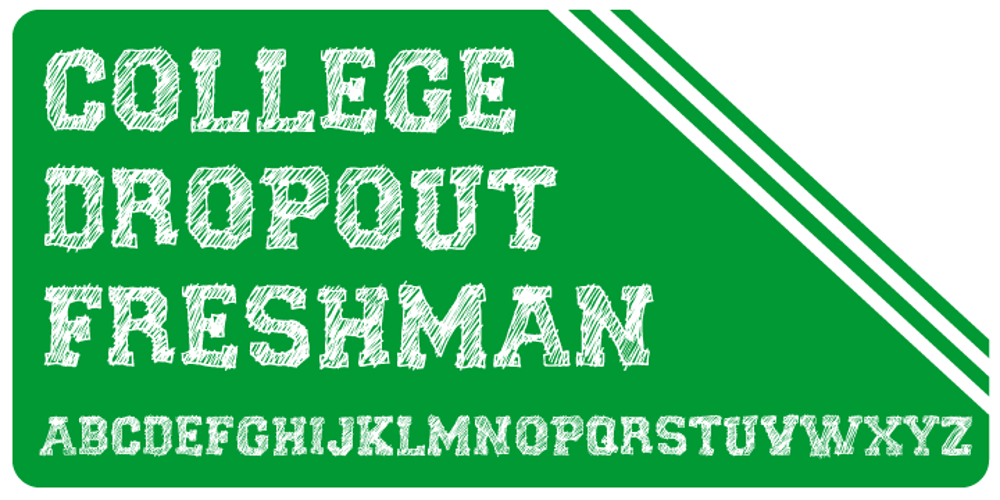
College Dropout Freshman
College Dropout Freshman font
College Dropout Freshman Font Family was designed by Dathan Boardman and published by Open Window. College Dropout Freshman contains 1 styles and family package options. College Dropout is hand sketched, organic and reminiscent of some of those less-than academic moments at school. Its ideal use is as a display font.